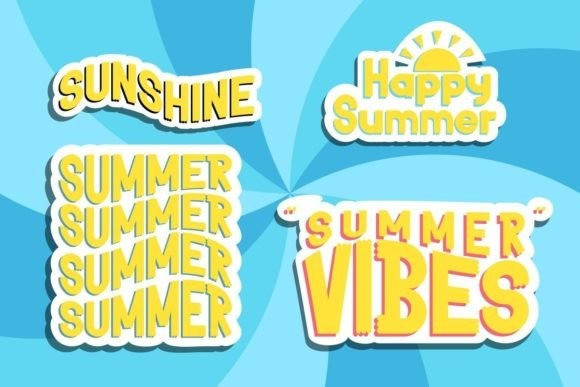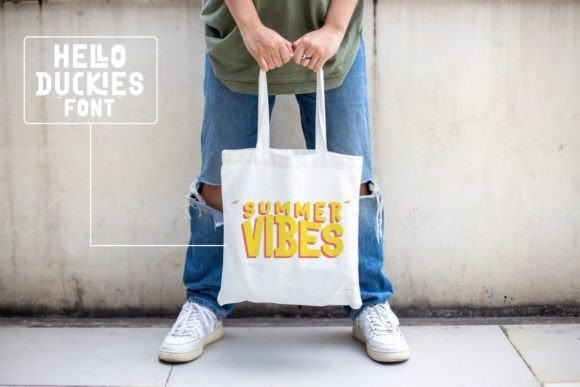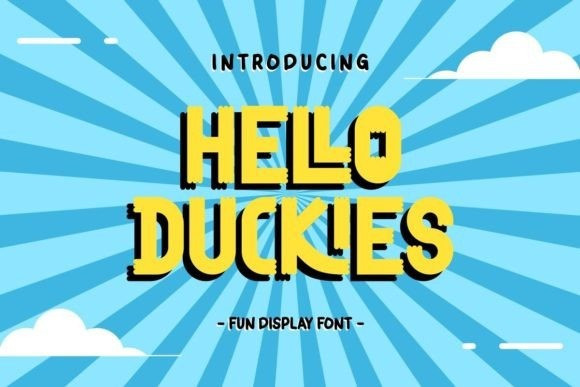
Hello Duckies Font
Hello Duckies Font is an adorable and whimsical display font that brings a playful and cheerful touch to any design. Inspired by the delightful quirkiness of rubber duckies, each letter is crafted with a sense of joy and cuteness. The font captures the essence of these beloved bath toys, evoking feelings of nostalgia and lightheartedness.